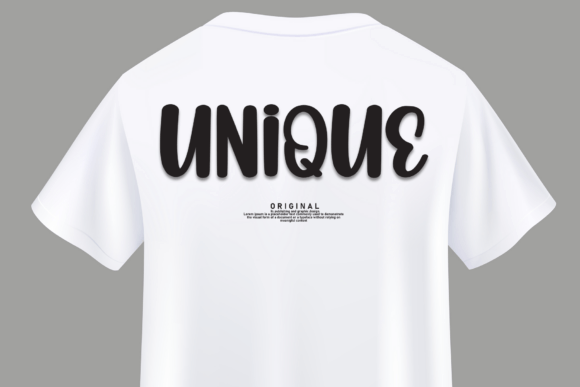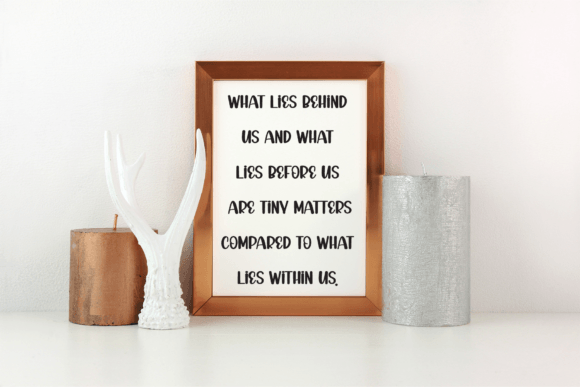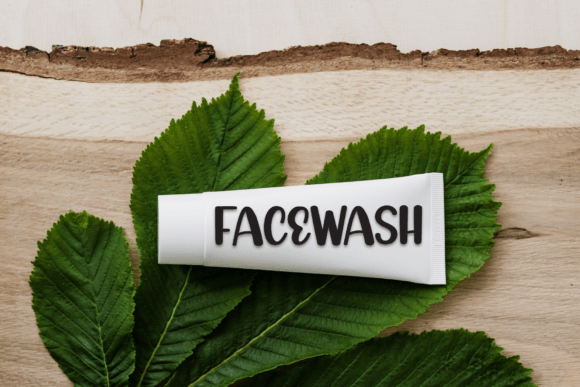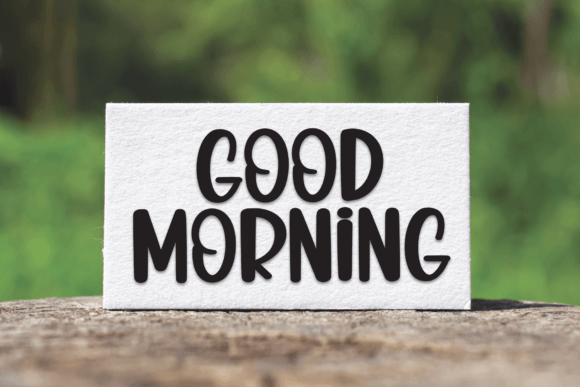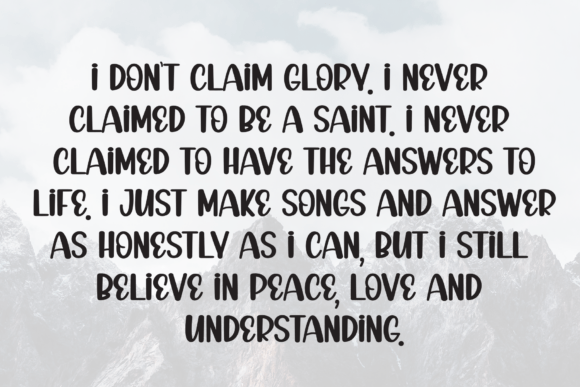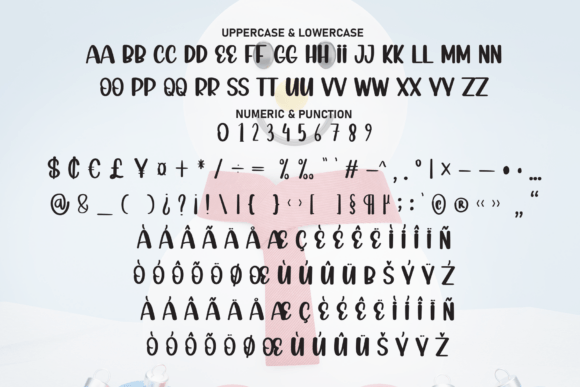
Getting Cozy with Typography: Introducing the Chubby Snowman Font
There’s nothing quite like the feeling of curling up by the fireplace with a warm cup of hot cocoa and a blank sheet of paper, waiting for inspiration to strike. As designers, we’ve all been there – searching for that perfect font to bring our ideas to life. And sometimes, it’s the simplest, most playful fonts that end up being the most effective. Enter the Chubby Snowman Font, a delightful display font that’s sure to add a touch of whimsy to your designs.
This chunky, rounded font is perfect for creating cheerful and festive designs, from holiday cards to kids’ projects and posters. Its friendly feel and ease of readability make it a valuable addition to any designer’s toolkit. Whether you’re working on a winter wonderland-themed campaign or a fun kids’ party invitation, the Chubby Snowman Font is sure to bring a smile to your audience’s faces.
Chubby Snowman Font Key Features
- Font Size: The font comes in 5 different sizes: 48pt, 64pt, 96pt, 128pt, and 192pt
- Resolution: The font is designed for use at 72 dpi and 96 dpi resolutions
- Unique Characteristics: The Chubby Snowman Font features a unique, playful design with rounded edges and a cheerful personality, making it perfect for winter-themed designs, children’s books, and festive advertisements
- Style Options: The font comes in a single style, but it can be used in various colors to add a pop of color to your designs
- Character Set: The font includes a standard set of characters, including uppercase and lowercase letters, numbers, and punctuation marks
Chubby Snowman Font Review
I’ve had the chance to work with the Chubby Snowman Font and here’s my honest review.
- ✨ Unique design: The font has a quirky, playful feel that’s perfect for festive or winter-themed projects.
- ✨ High-quality glyphs: The font includes a wide range of characters, including uppercase and lowercase letters, numbers, and punctuation.
- ✨ Easy to read: Despite its unconventional design, the font is surprisingly easy to read, even at smaller sizes.
- ⚠️ Limited language support: The font only includes characters for the Latin alphabet, which may be a problem for projects that require other languages.
- ⚠️ Not ideal for body text: While the font is great for headings or titles, it’s not the best choice for large blocks of body text, as it can be tiring to read.
- ⚠️ May not work well in small sizes: While the font is easy to read, it may not scale well to very small sizes, which could be a problem for certain applications.
Overall, I think the Chubby Snowman Font is a fun and creative choice for projects that need a festive or playful touch. While it may have some limitations, it’s a great option for headings, titles, or other short blocks of text.
Tips for Getting the Most Out of the Chubby Snowman Font
Here are a few tips for getting the most out of the Chubby Snowman Font:
- Use it to create festive designs for the holiday season.
- Pair it with other bold and playful fonts for a fun and playful look.
- Use it to add a touch of whimsy to your designs.
The Chubby Snowman Font is commonly used in:
- Holiday cards and invitations.
- Winter-themed posters and prints.
Alternative Fonts to Chubby Snowman Font
Great Vibes is a modern, cursive font perfect for creating a playful and friendly atmosphere. It is ideal for use in invitations, greeting cards, and social media graphics.
Compared to Chubby Snowman Font, Great Vibes is more elegant and less cartoonish. While Chubby Snowman Font has a more childlike feel, Great Vibes is better suited for a wider range of audiences.
Pacifico is a beautiful, elegant script font that exudes a sense of relaxation and sophistication. It is perfect for use in branding, packaging, and advertising materials.
Pacifico has a more refined and polished look compared to Chubby Snowman Font, making it a great choice for high-end designs. While Chubby Snowman Font is more playful, Pacifico is better suited for creating a sense of luxury and sophistication.